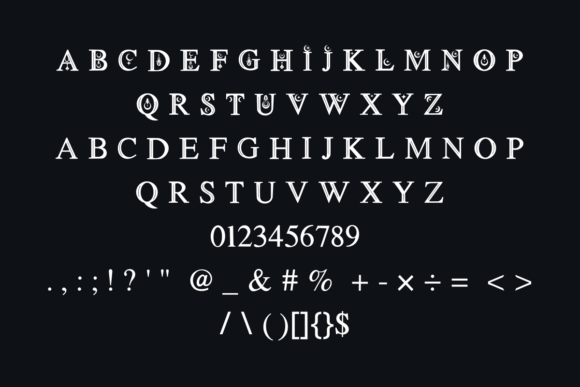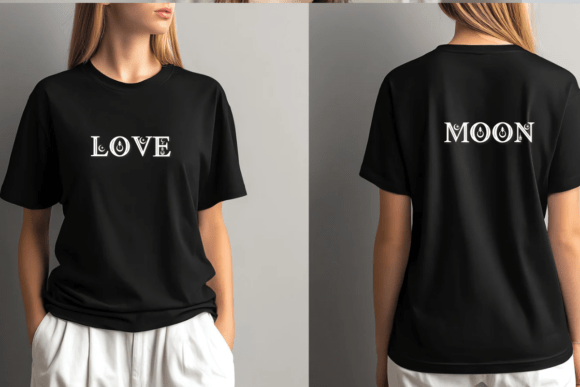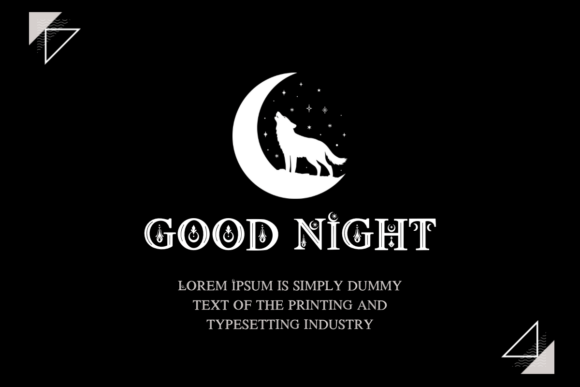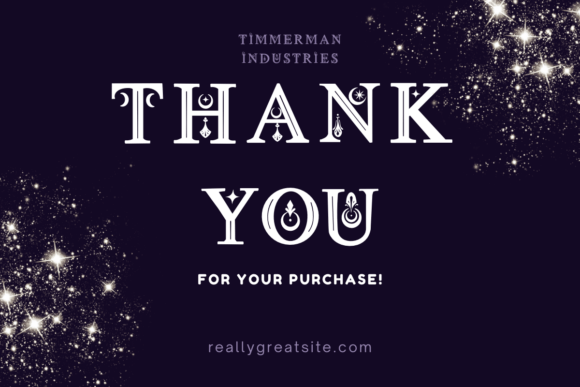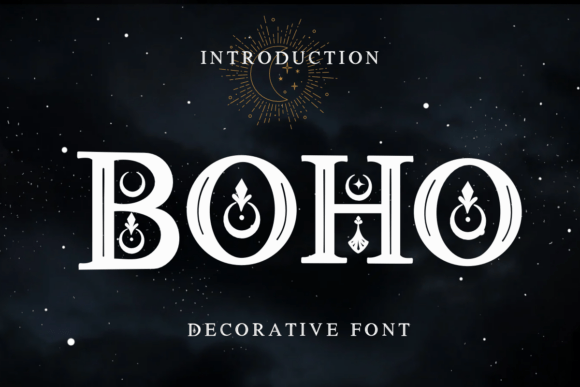
The Boho Font: A Decorative Delight for Creatives
I’ll never forget the moment I stumbled upon the Boho font while working on a handmade greeting card project. I was searching for a unique and playful font to add a personal touch, but nothing seemed quite right. That was until I discovered Boho – a decorative font that instantly captured the free-spirited vibe I was going for. In this article, we’ll dive into the world of Boho, exploring its features, uses, and some helpful tips for getting the most out of this beautiful font.
An Honest Review of Boho Font
As a designer and crafter, I’m always on the lookout for fonts that can elevate my projects and make them stand out. Boho has quickly become a favorite in my collection, and here’s why:
- ✨ Unique and eye-catching design that’s perfect for making a statement
- ✅ Highly versatile and can be used for a wide range of projects, from notes and diaries to banners and social media posts
- 💫 Great for adding a personal touch to handmade cards, gifts, and other crafts
Of course, no font is perfect, and Boho does have a few quirks:
- 🤔 Some characters may not work well in very small sizes, so it’s best to use it at larger sizes for optimal results
- ⚠️ Limited availability of certain special characters, so it’s a good idea to have a backup plan for those
A Practical Guide to Using Boho Font
Now that we’ve covered the basics, let’s dive into some practical tips for using Boho in your designs.
One of the best things about Boho is its support for OpenType features and glyphs. These features allow you to add extra flair to your text and make it more visually interesting. Here are a few tips for getting the most out of OpenType features:
- Use glyphs to add decorative elements, such as flourishes and swashes, to your text
- Experiment with stylistic alternates to create unique and interesting variations of your text
- Take advantage of ligatures and other typographic features to add a professional touch to your text
The Backstory of Boho Font
Boho font was designed with the creative and free-spirited individual in mind. The designer wanted to create a font that captured the essence of bohemian style – eclectic, playful, and a little bit quirky. With its unique blend of elegance and whimsy, Boho is the perfect font for anyone looking to add a personal touch to their projects.
| What is Boho font best used for? | Boho font is best used for creative projects, such as handmade cards, gift tags, and other crafts. It’s also great for adding a personal touch to notes, diaries, and journals. |
| Is Boho font suitable for body text? | While Boho font is beautiful and eye-catching, it’s not the best choice for body text. It’s better suited for headlines, titles, and other display text. |
| Is Boho font available in different styles? | Currently, Boho font is available in a single style, but the designer may release additional styles or variations in the future. |